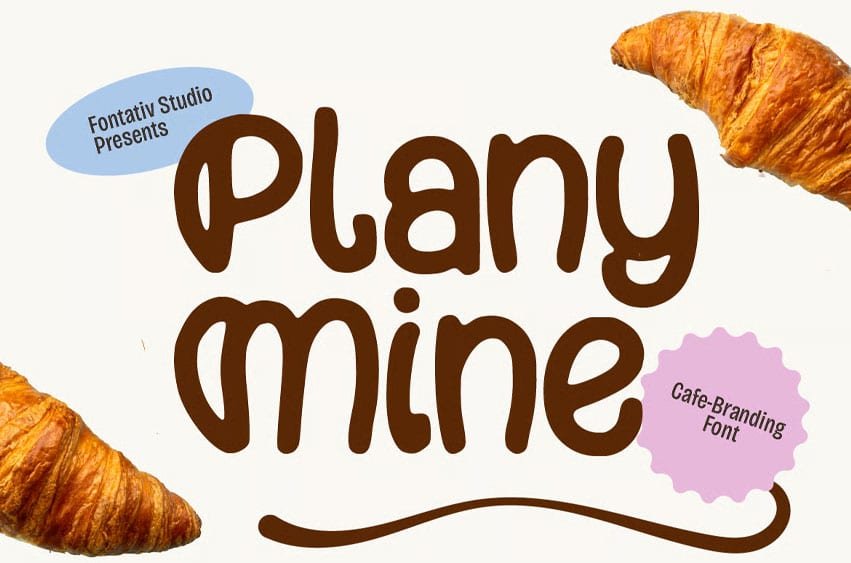
Plany Mine Font is a playful and friendly bakery cafe branding font designed with soft, rounded letterforms and a warm handcrafted personality. Its smooth shapes create a cozy and approachable look, making it a great choice for bakery logos, cafe branding, pastry shops, coffee shops, dessert businesses, food packaging, menu designs, and cheerful food-related projects.
Available in 1 style: Regular, Plany Mine works beautifully for bakery logos, cafe signage, product labels, packaging, loyalty cards, social media graphics, posters, menus, stickers, and promotional materials. Its cute and welcoming character adds a memorable touch to food branding while keeping the overall design fun, warm, and easy to recognize.